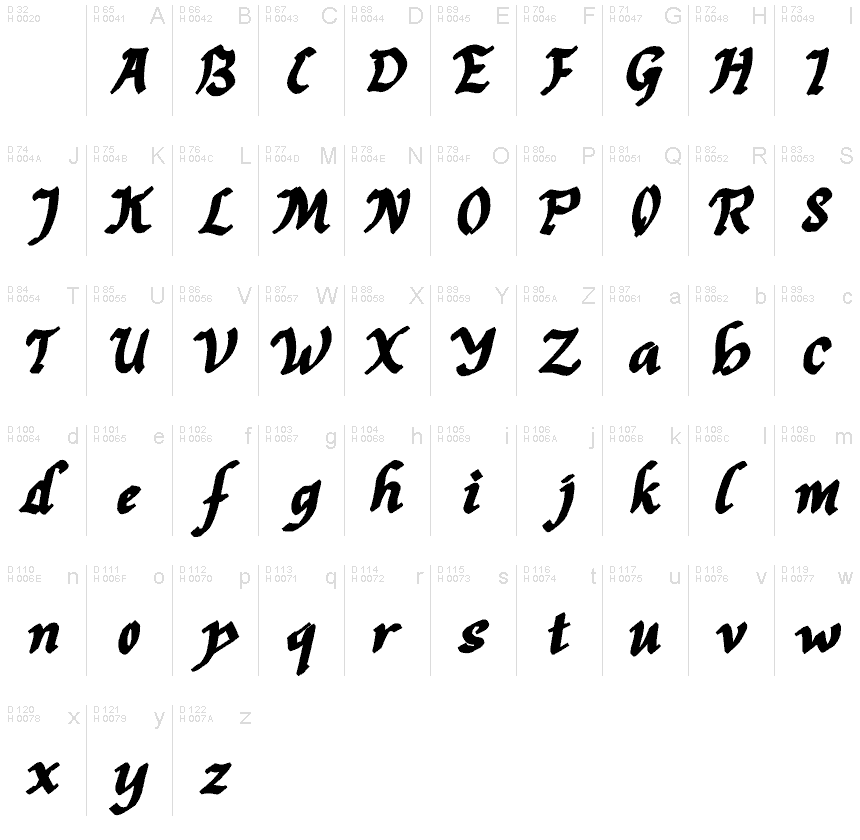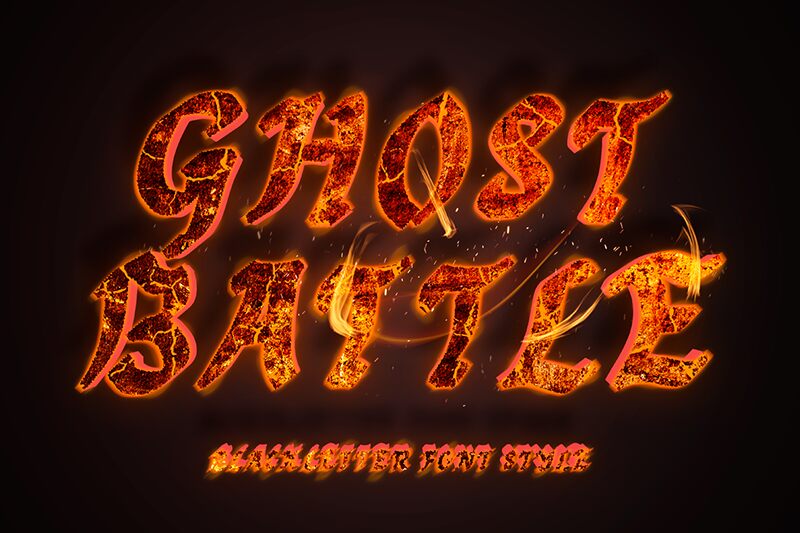
Ghost Battle Personal
“Battle of the Sexes” is a phrase we hear a lot of today. This particular font, a part of the Yoga Letter portfolio, will immediately remind one of an even older phrase, the battle of good against evil.
This is a Gothic font which can be used for a lot of reasons. It combines a sharp presentation and classic typography. The elegant designs can be used for book covers, branding projects, etc. This particular one is a OTF font that you can use for personal purposes, so why don’t you check out the full Yoga Letter portfolio?